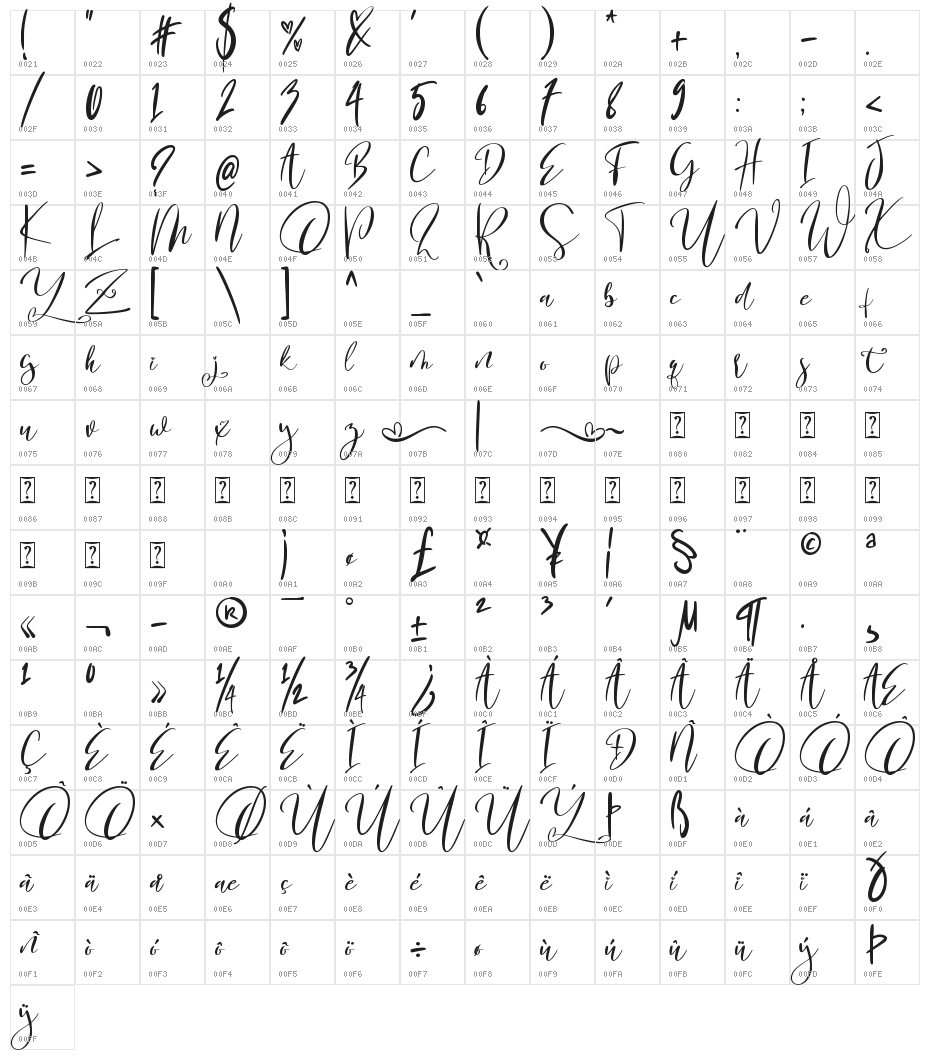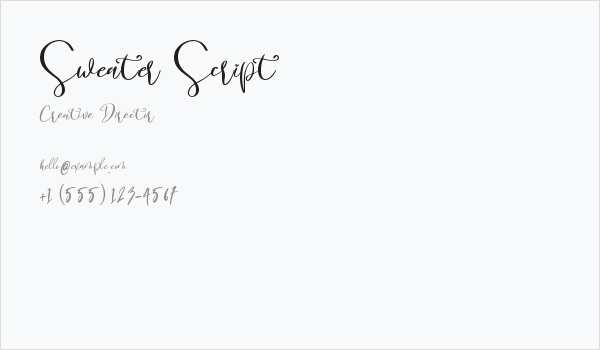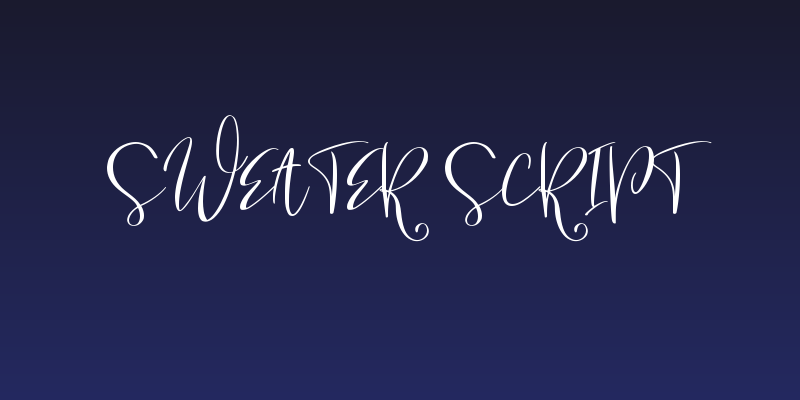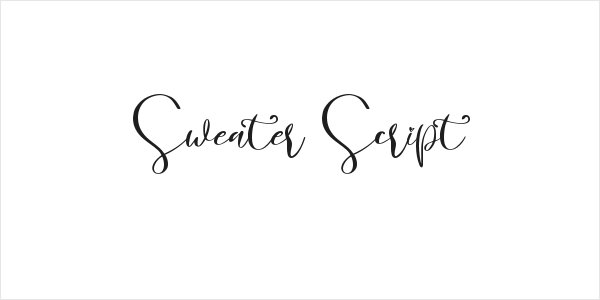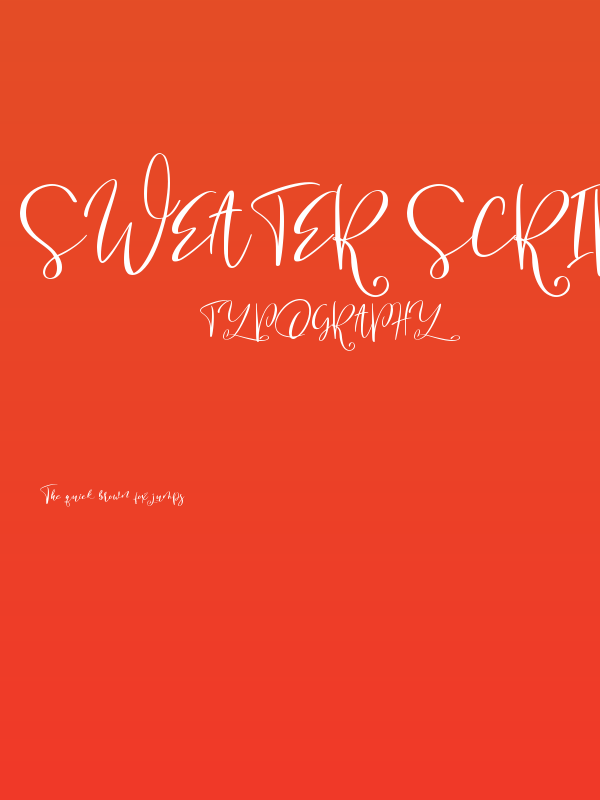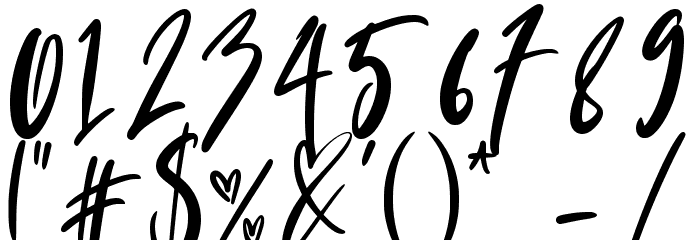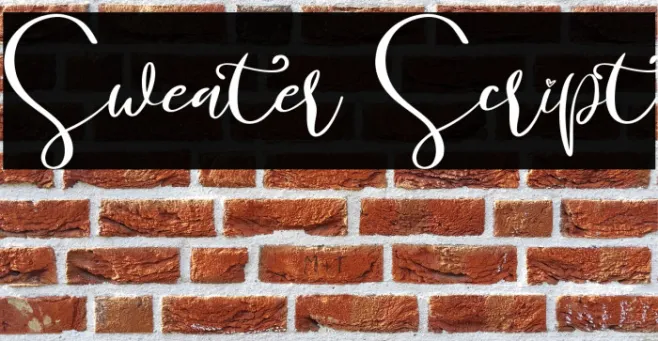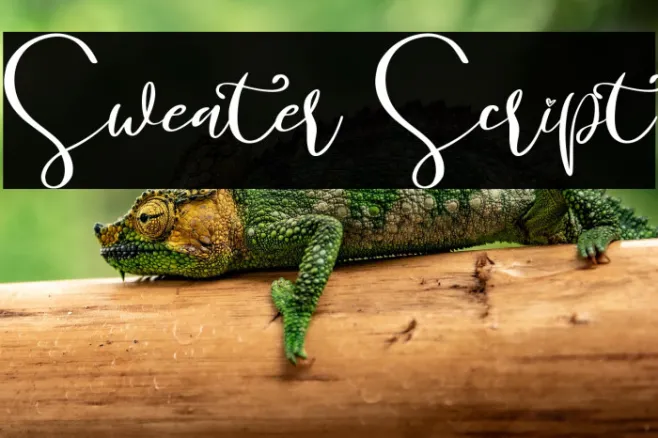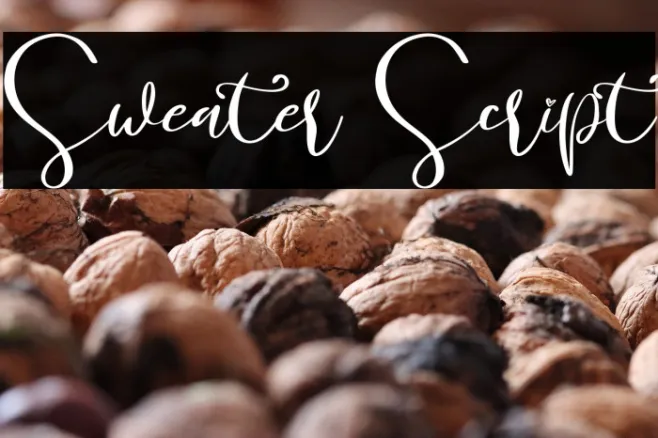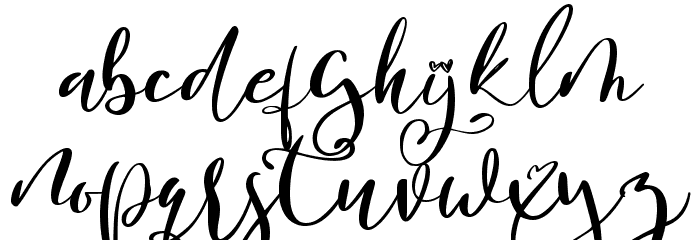
Sweater Script Font
Sweater Script Description
This font features a flowing, cursive style that exudes elegance and sophistication. The letters are connected with smooth, sweeping strokes, giving it a handwritten feel. The uppercase letters are tall and graceful, while the lowercase letters maintain a consistent flow, enhancing readability. The numbers and special characters are designed with the same fluidity, ensuring a cohesive look across all text. This font is perfect for adding a personal touch to any project, with its artistic flair and stylish appearance.